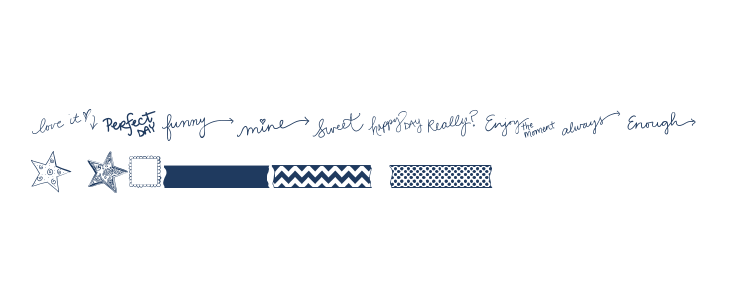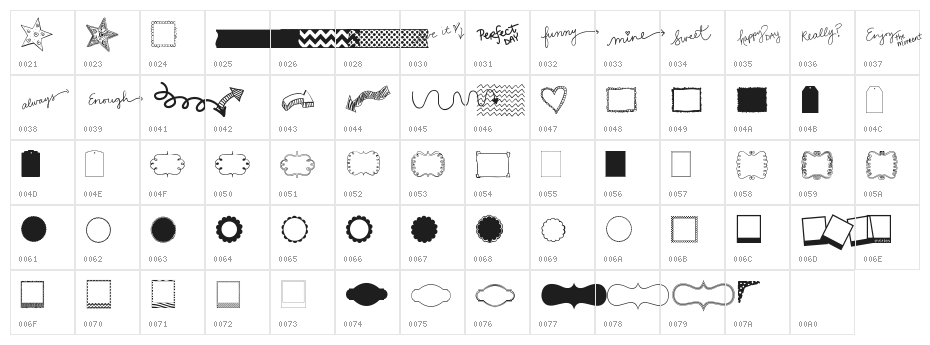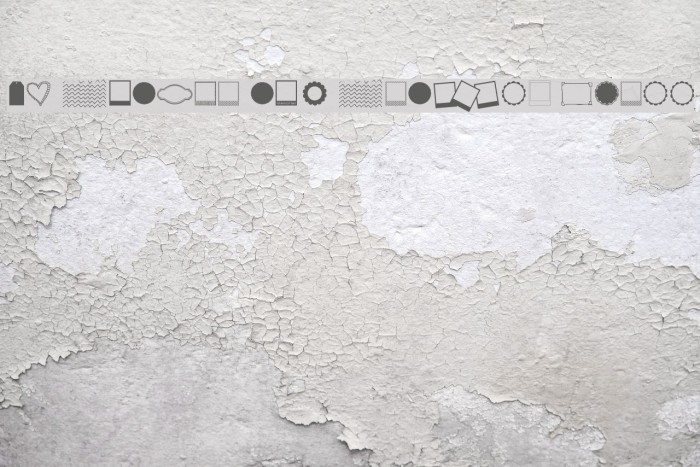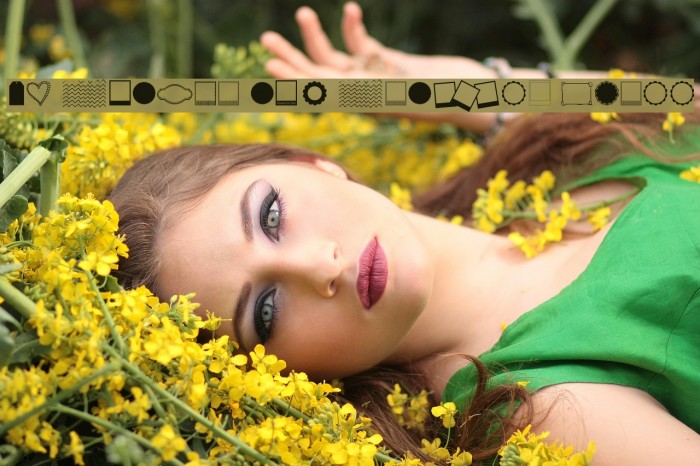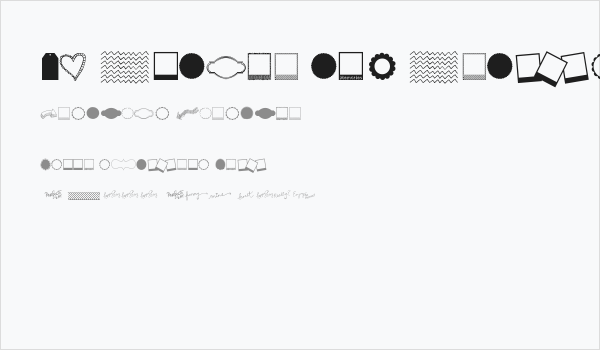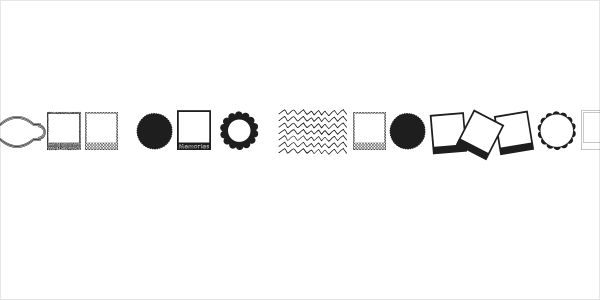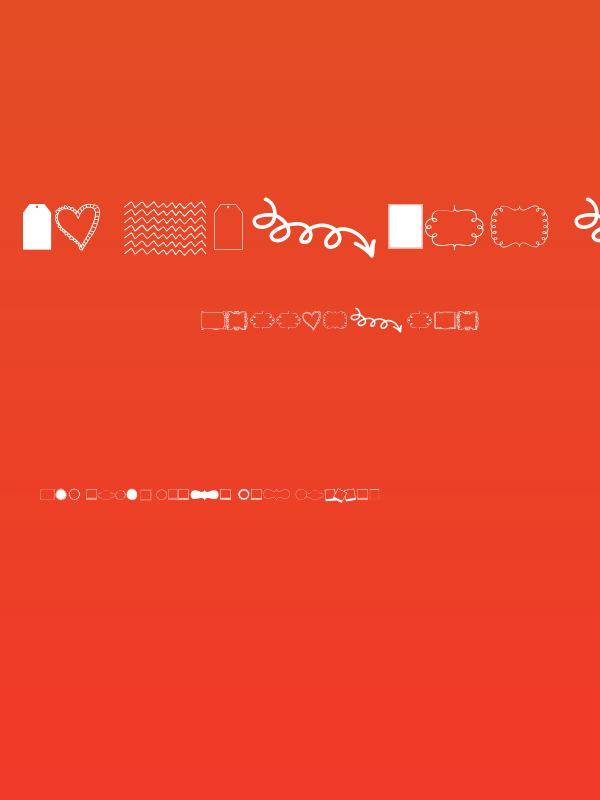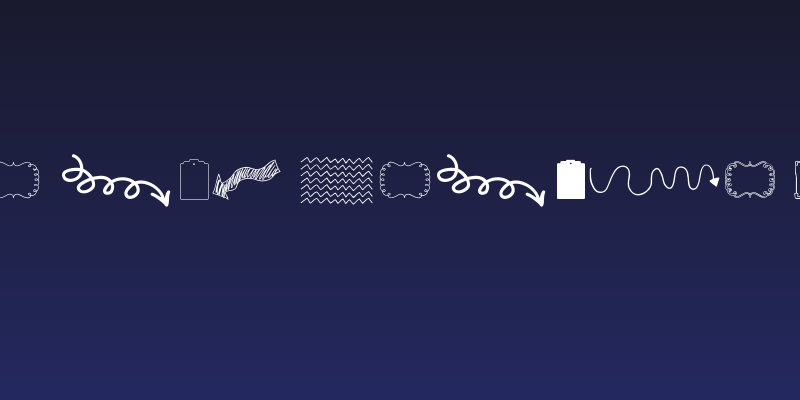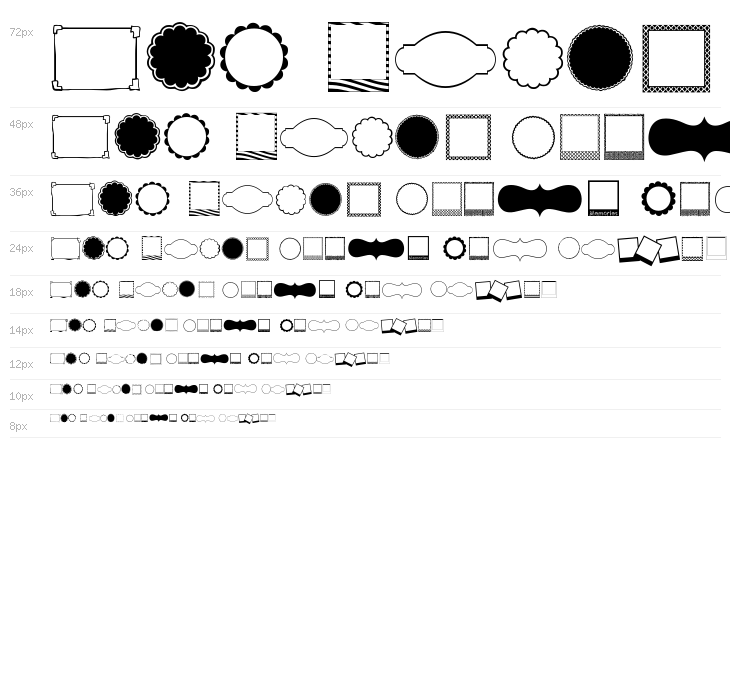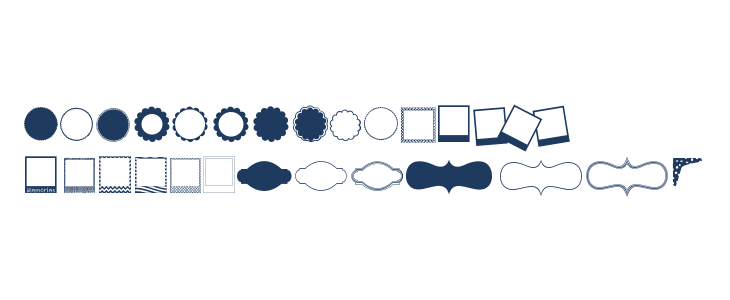
KG Flavor and Frames Three Font
KG Flavor and Frames Three Description
This collection features a playful and decorative set of frames and arrows, each with unique patterns and shapes. The designs include curly arrows, zigzag lines, hearts, and various frame styles ranging from scalloped edges to bold, solid shapes. The elements are ideal for adding a whimsical touch to creative projects. The handwritten words add a personal and casual feel, perfect for scrapbooking or personalized notes. The variety in design allows for versatile use, whether for highlighting text or creating borders.
| Use Case | Logos, Decorative elements |
| Proposed Projects | Ideal for scrapbooking, personalized stationery, creative borders, and decorative elements in digital design. |